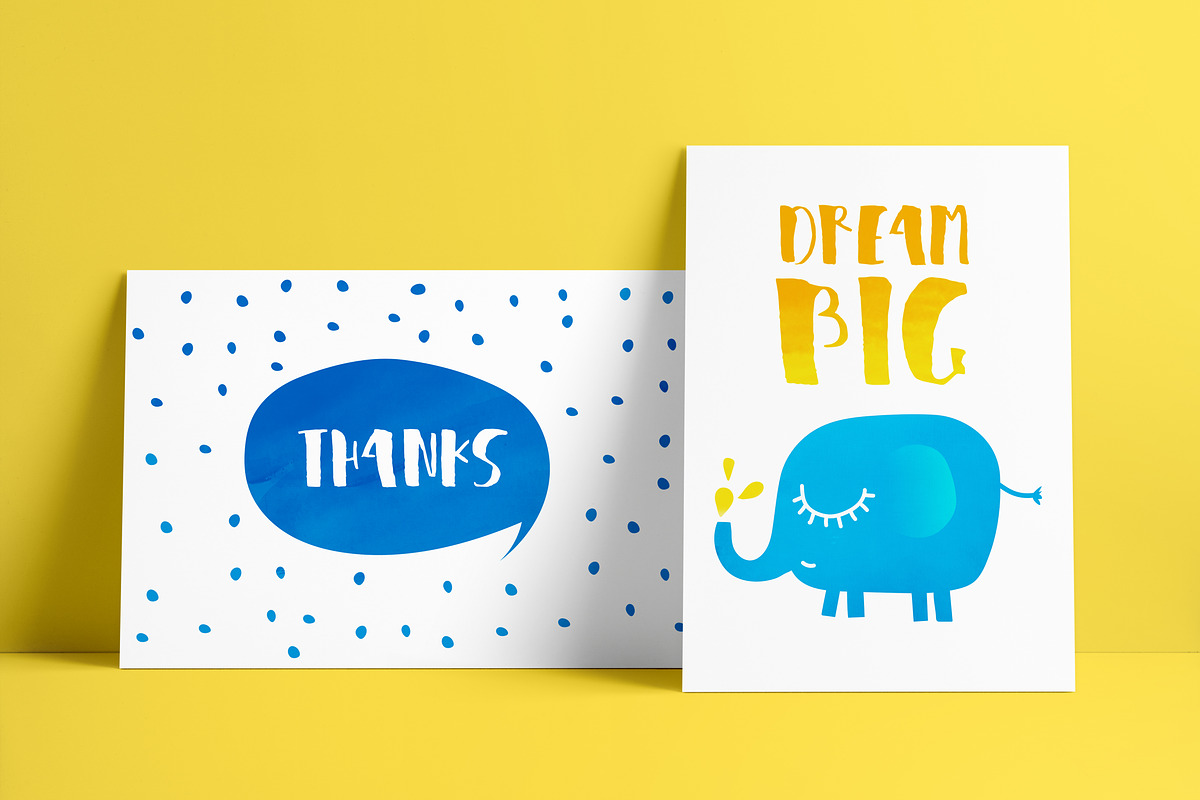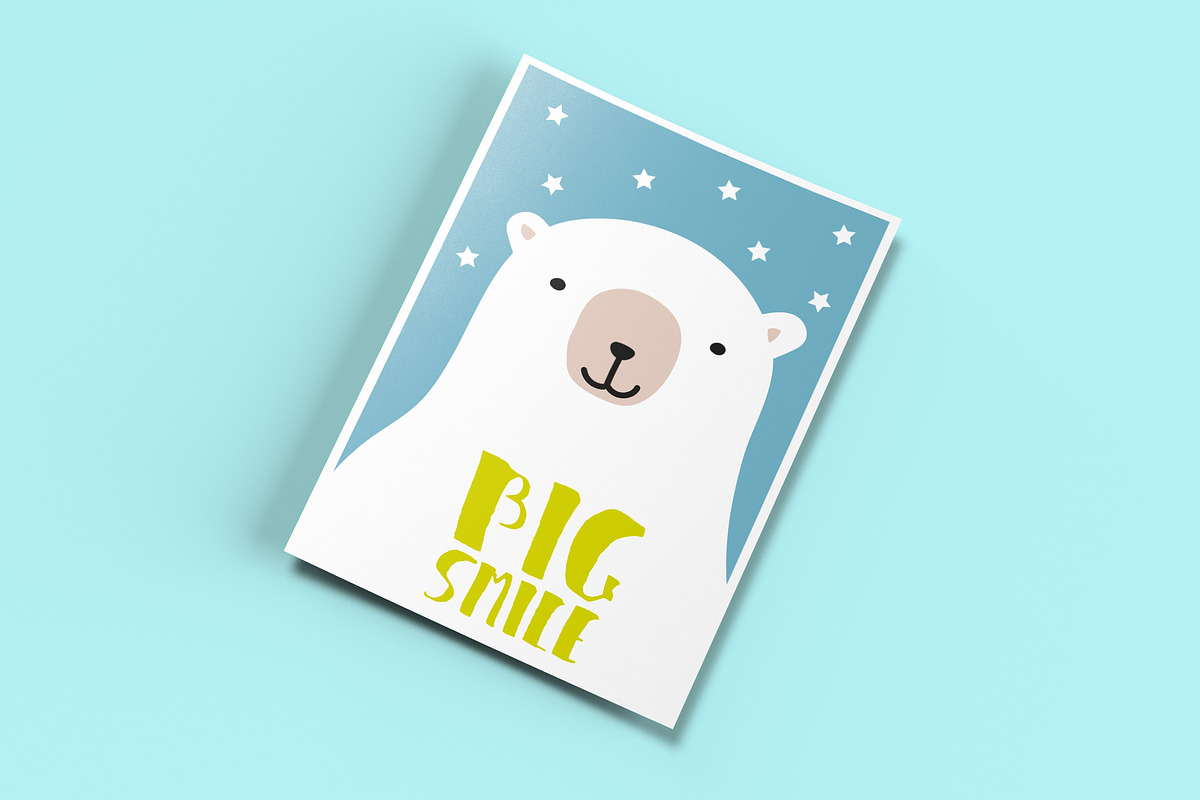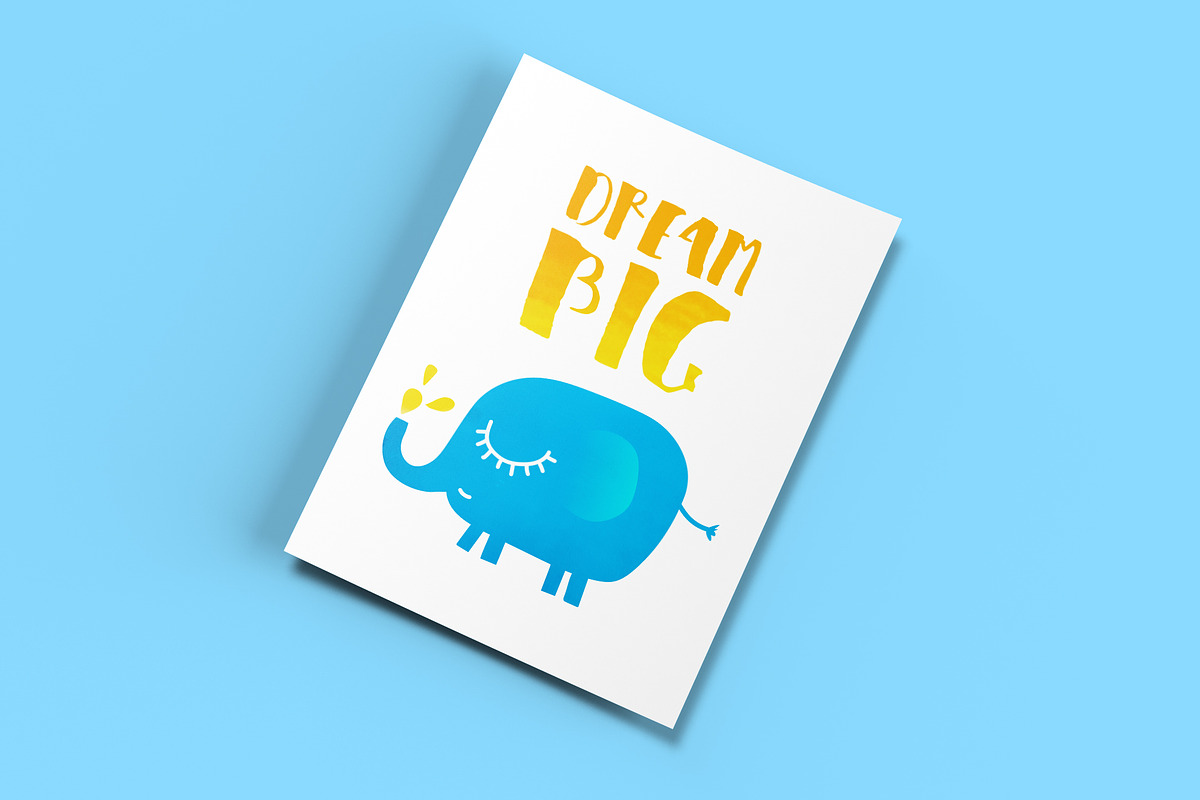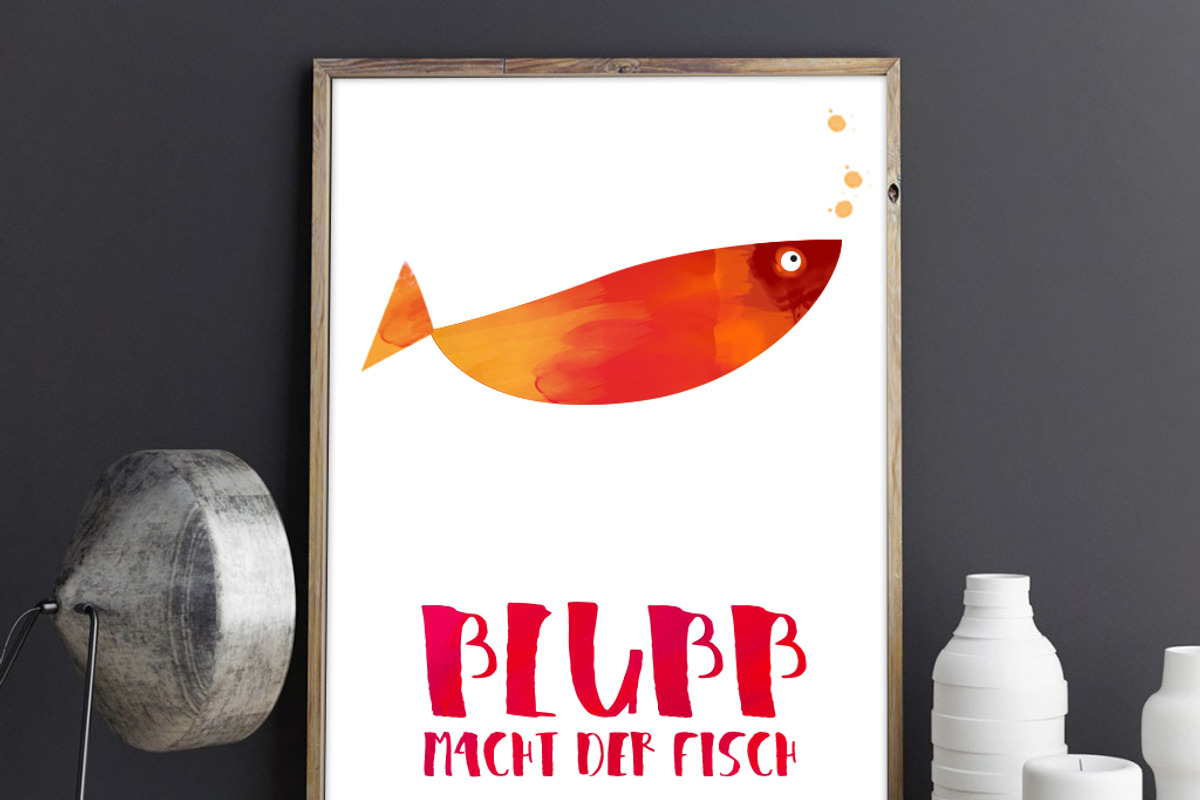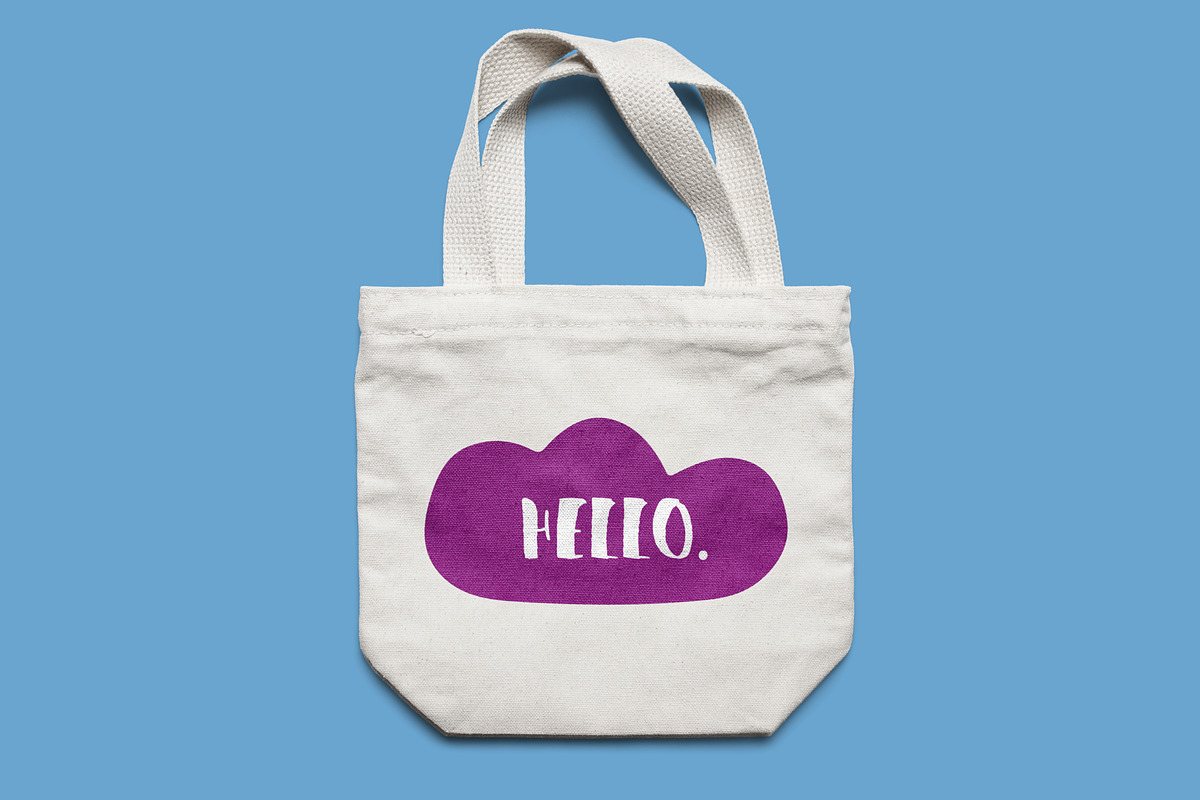
JULIE
JULIE – handwritten font
Introducing JULIE - a hand-lettered typeface designed to help you create that look of truly hand-drawn touch to any of your typographic projects. JULIE typeface comes with upper case characters, a set of punctuation glyphs and numerals.